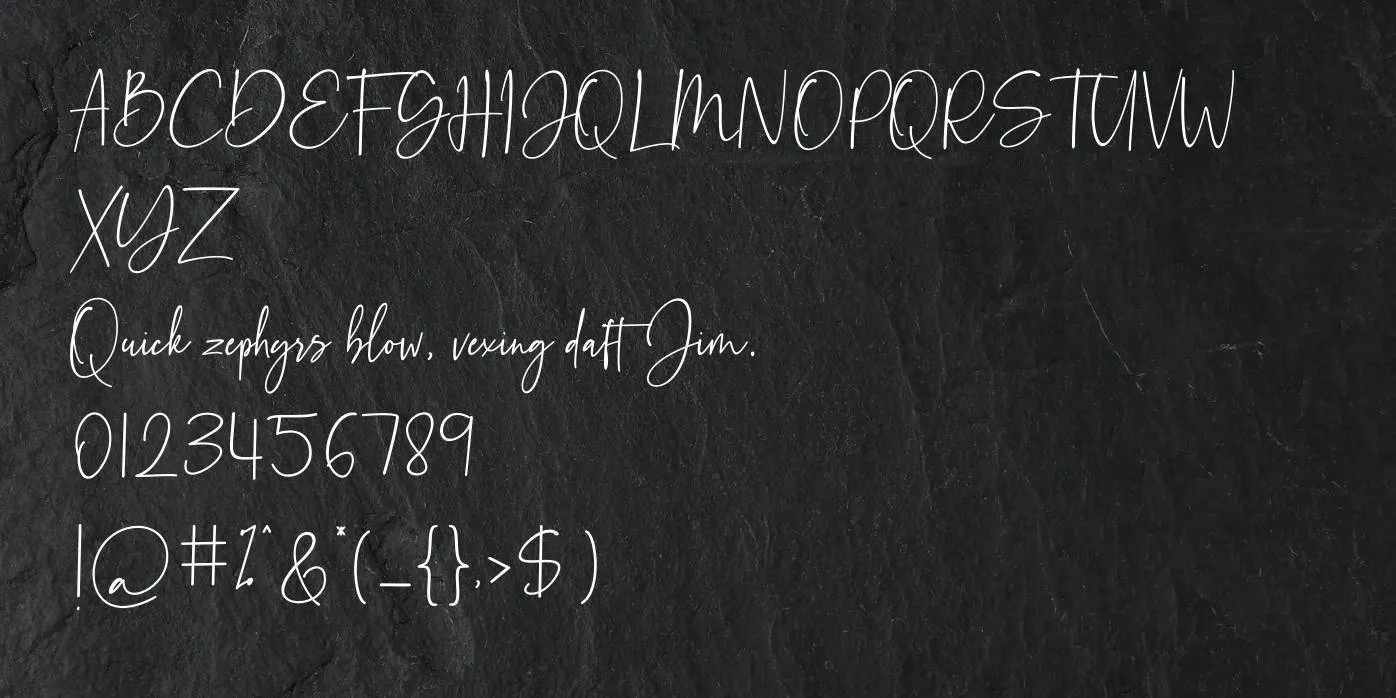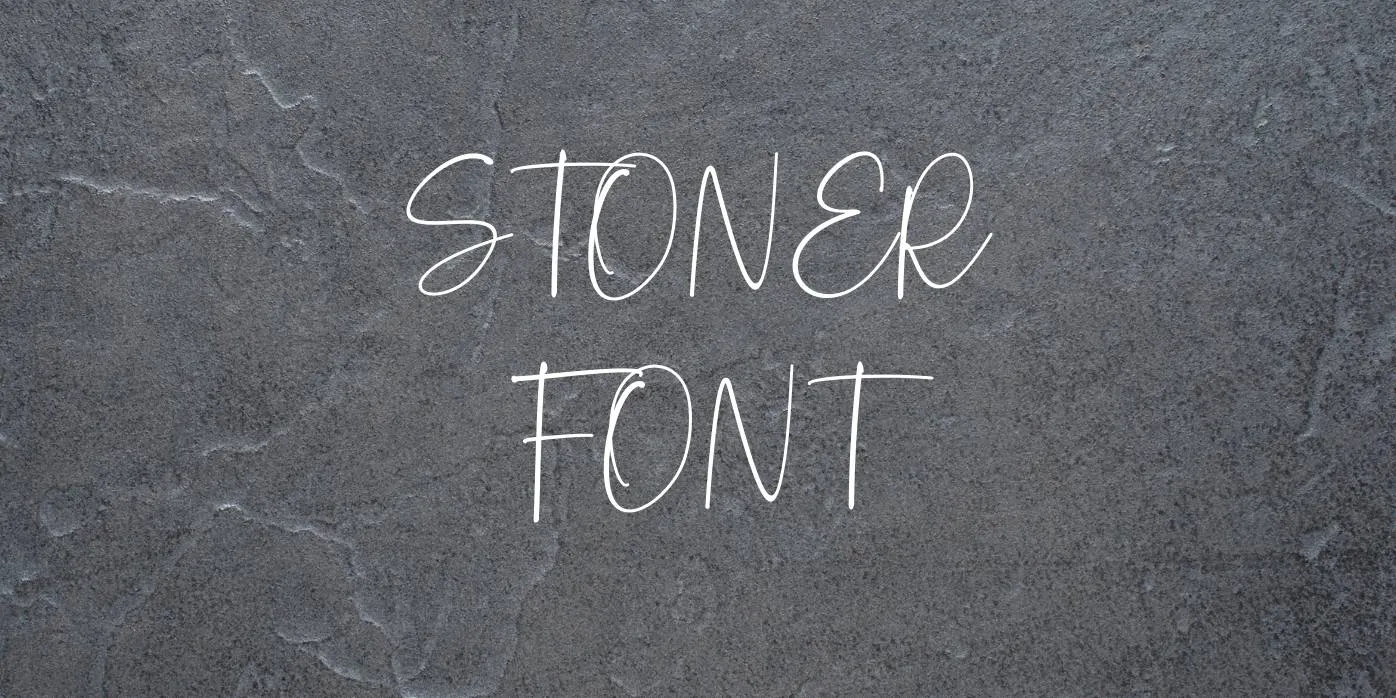
Stoner Font
Introducing an extraordinary typeface that belongs to the script font family. The typeface is known as Stoner font and the designer of this typeface is Fikryal Studio. It has TTF features and is free for personal use only. The characters in this font look like hand-drawn pencil letters.
It has a signature style connected letter texture. Stoner font supports many languages and is fulfilled all the designers need also. Every part of the font’s letter is interconnected with each other. This signature style typeface has only one style and weight Uppercase and Lowercase letters, Numbers and Numerals, general punctuation, special glyphs, and special symbols also.